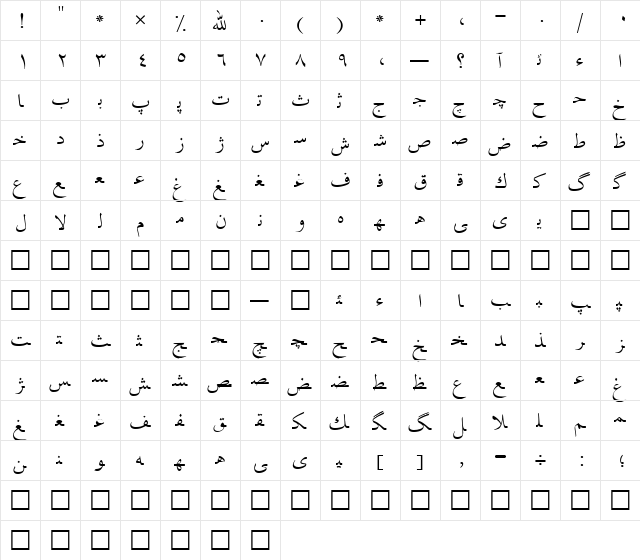
Irnafont_2 Normal
Irnafont_2 takes a measured approach to typography — its balanced proportions and neutral character make it a reliable workhorse for both digital and print work.